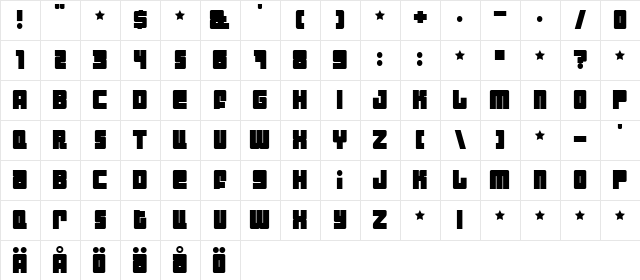
Industrial Decapitalist Bold Free Font
Industrial Decapitalist Bold
Design Context for Industrial Decapitalist
Industrial Decapitalist is a composed and adaptable typeface that performs quietly and consistently across a wide range of design contexts. Its bold stroke weight gives it real presence on the page.